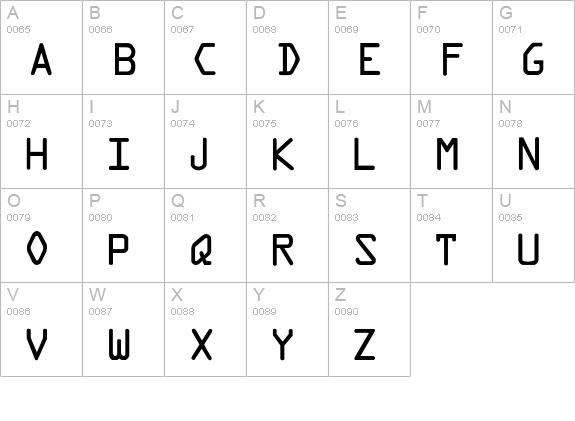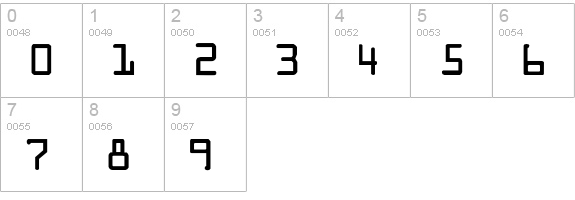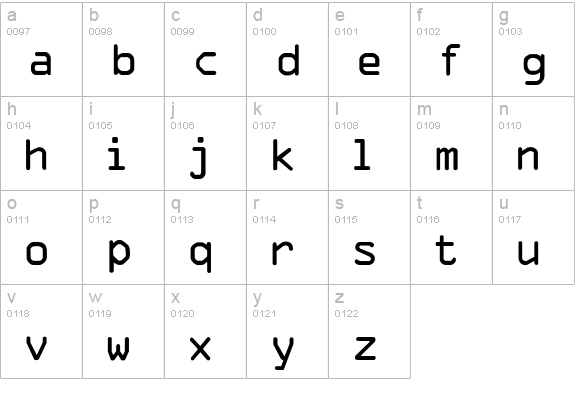
Dolomit Font Details
Introducing Dolomit font, a modern and versatile typeface that exudes sophistication and elegance. With its sleek and stylish design, Dolomit is perfect for a wide range of design projects, from branding to editorial design and beyond. What sets Dolomit apart is not only its timeless aesthetic appeal but also the fact that it is available for free download at FontsMarket.com. This means that you can elevate your design projects without breaking the bank, making Dolomit a valuable addition to any designer's toolkit. Whether you're looking to make a statement with your typography or simply want to add a touch of class to your designs, Dolomit has you covered. Download it today and see for yourself the endless possibilities this font has to offer.